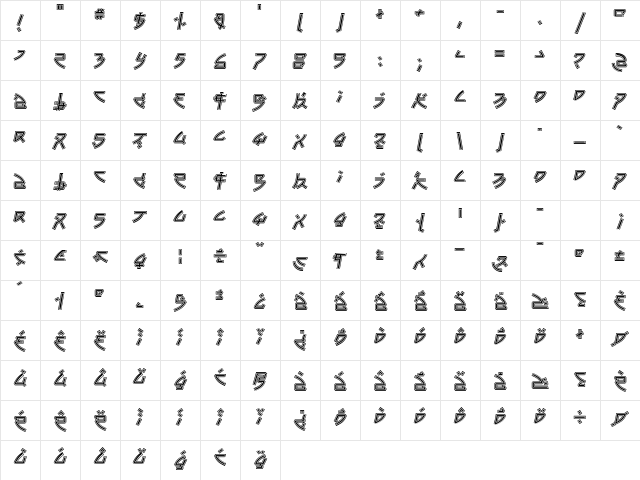
TsunamiInline Regular
TsunamiInline brings ornamental detail and strong personality to headlines and identities, where visual impact matters more than quiet functionality.
Font Pairing: Pair with a clean neutral sans-serif for body copy to let TsunamiInline's character lead without overwhelming the composition.
Pro Tip: Treat TsunamiInline as the centrepiece of your typographic hierarchy. One strong heading set in a decorative face can carry an entire layout.